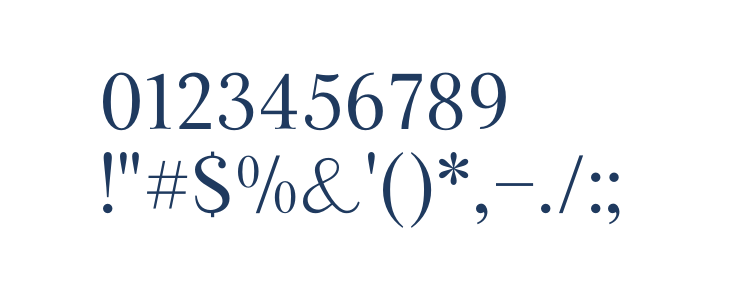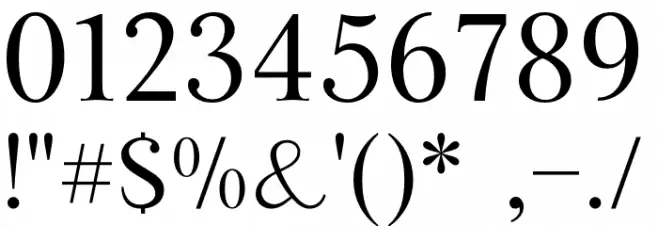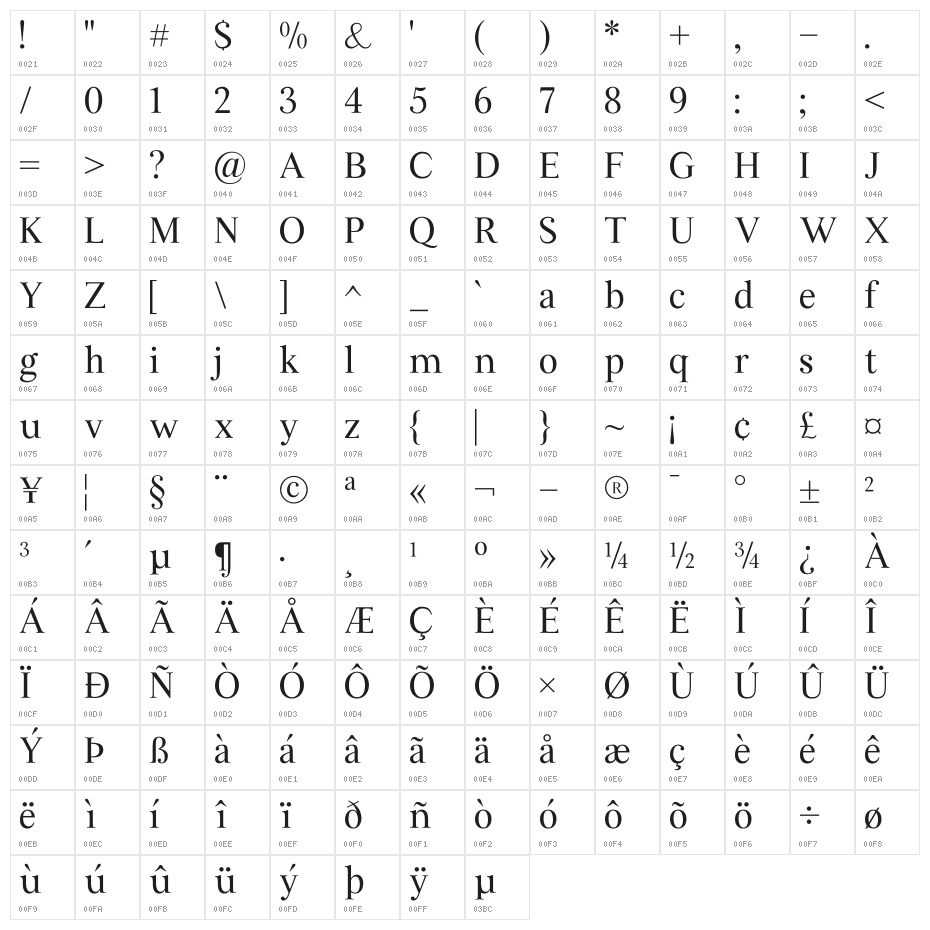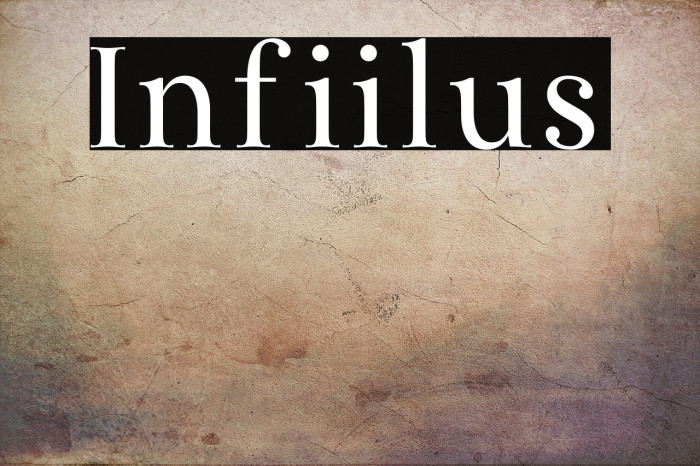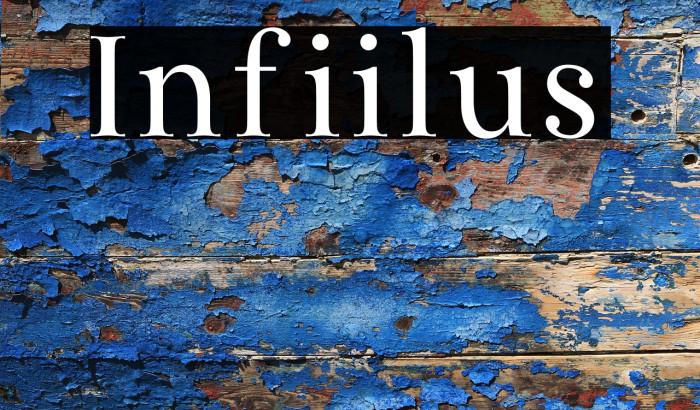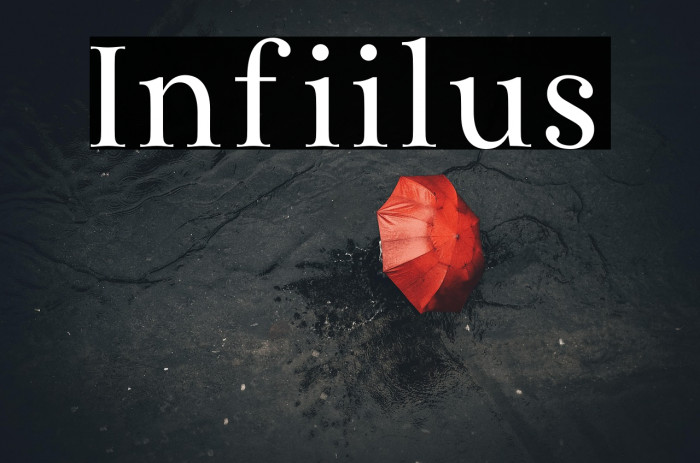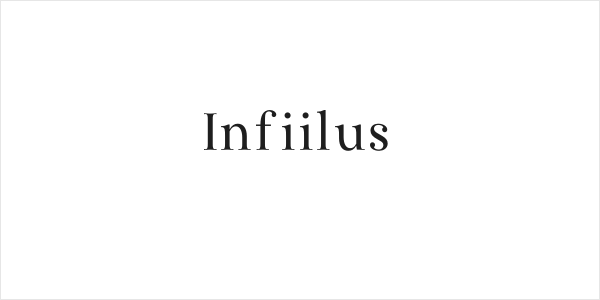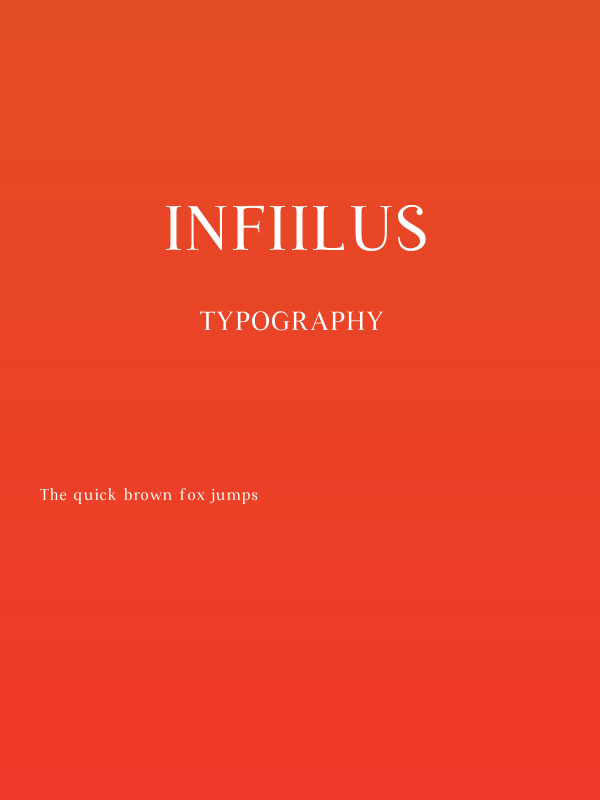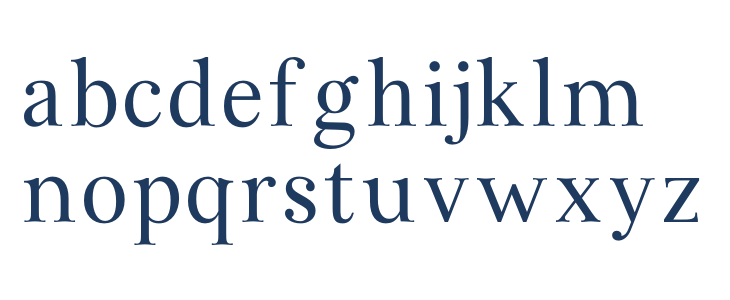
Infiilus Font
Infiilus Description
This elegant serif font features a classic and timeless design, characterized by its high contrast between thick and thin strokes. The uppercase letters are bold and commanding, while the lowercase letters maintain a refined and sophisticated appearance. The numerals are well-proportioned, ensuring readability and balance. Special characters are thoughtfully designed, complementing the overall aesthetic. The font's structure is clean and precise, making it suitable for a variety of applications where a touch of elegance is desired.
Overall StyleClassic
Use CaseHeadlines, Body text, Logos
Proposed ProjectsIdeal for book covers, formal invitations, branding, and editorial design.